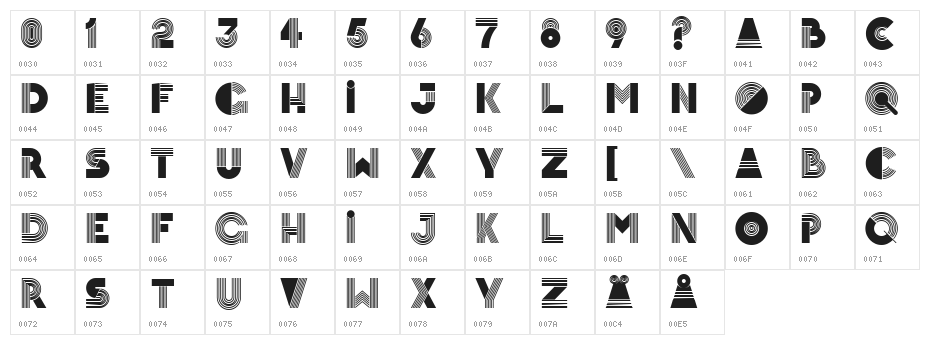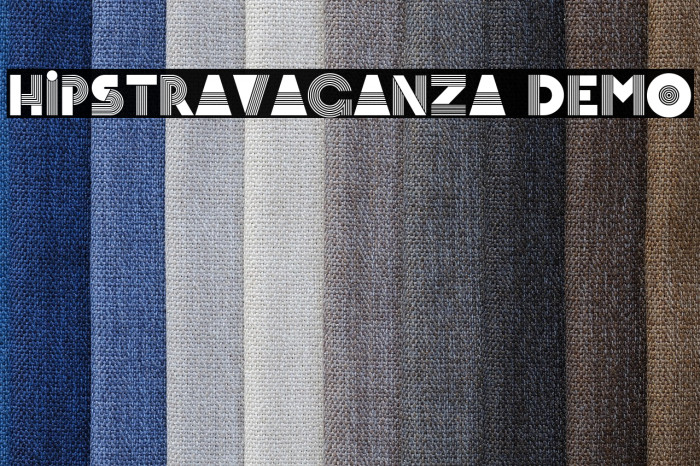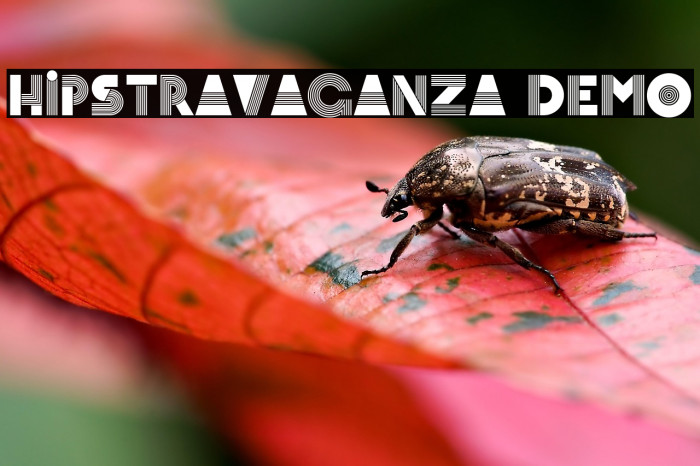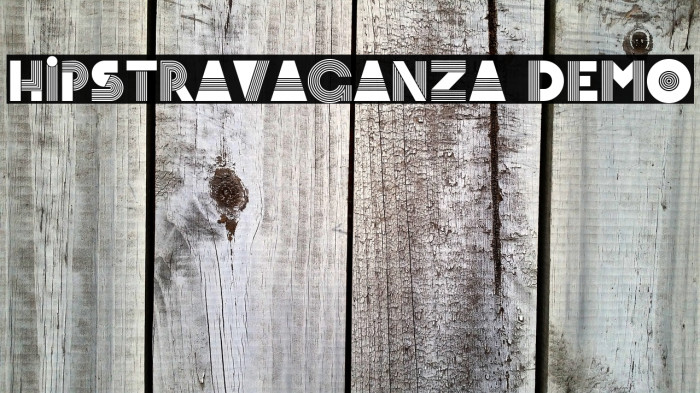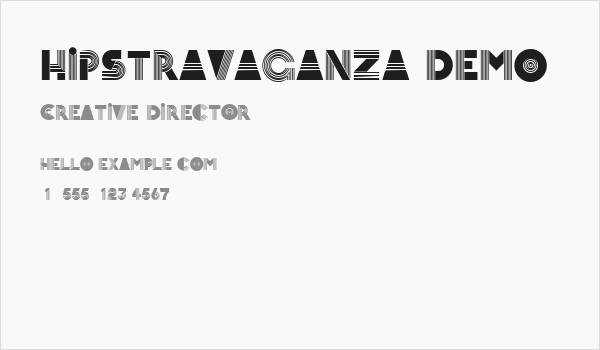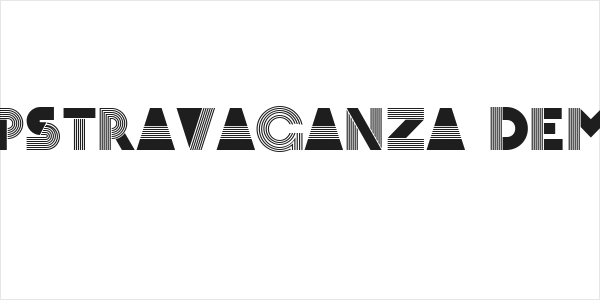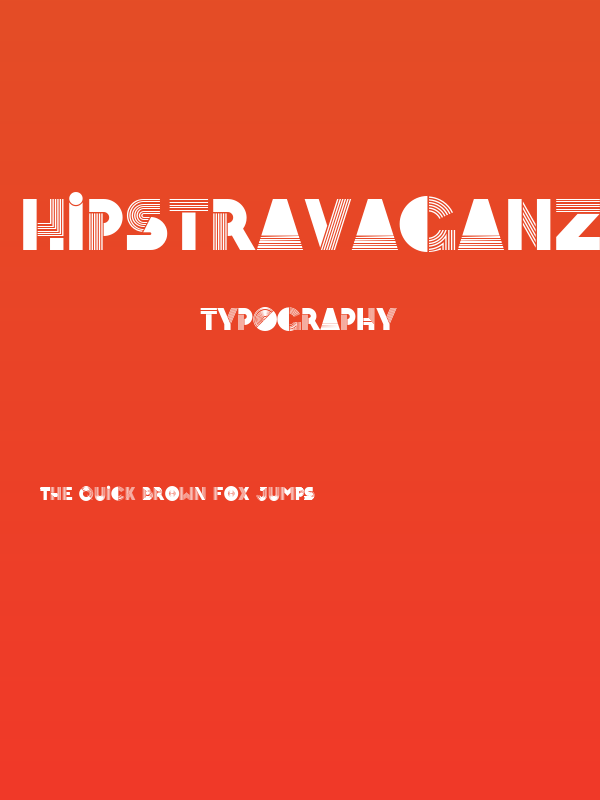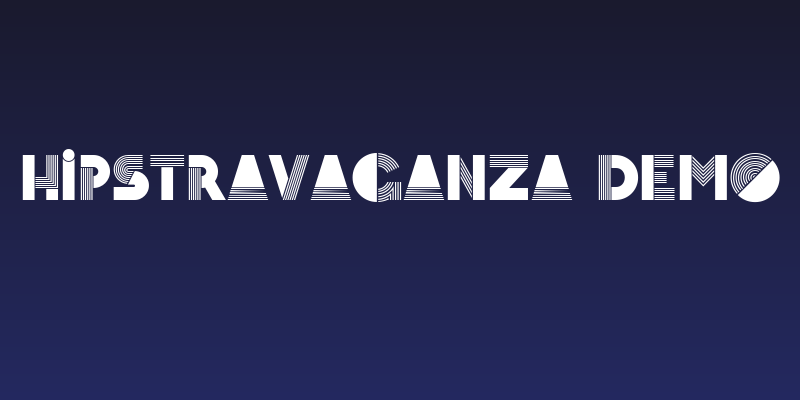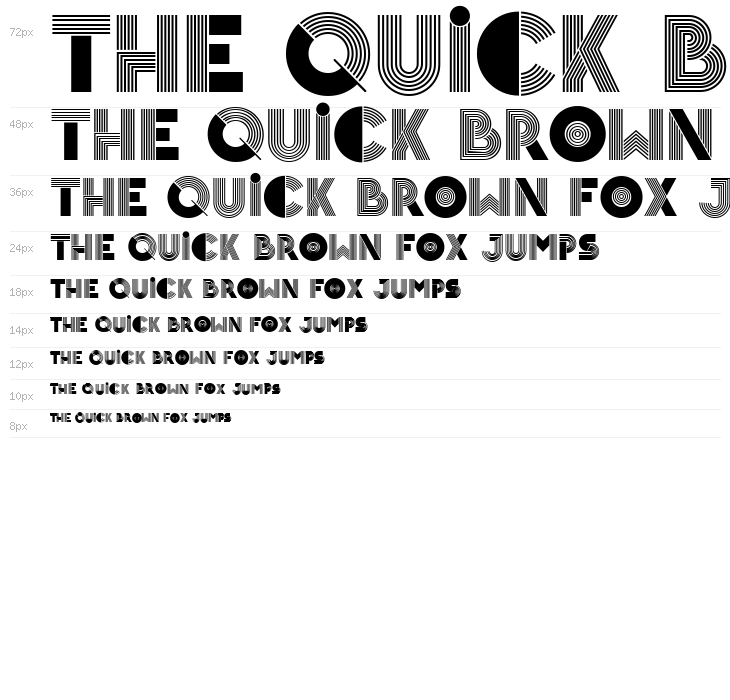
Hipstravaganza Demo Font
Hipstravaganza Demo Description
This font is a bold and striking display typeface characterized by its geometric shapes and unique line patterns. Each letter features a combination of solid and striped sections, creating a dynamic and eye-catching effect. The uppercase letters are particularly bold, with a strong presence that makes them ideal for headlines and titles. The numbers follow the same design principles, ensuring consistency throughout the typeface. The overall style is modern and decorative, making it suitable for projects that require a distinctive and artistic touch.
| Proposed Projects | Ideal for branding, posters, album covers, and any project needing a bold, artistic touch. |